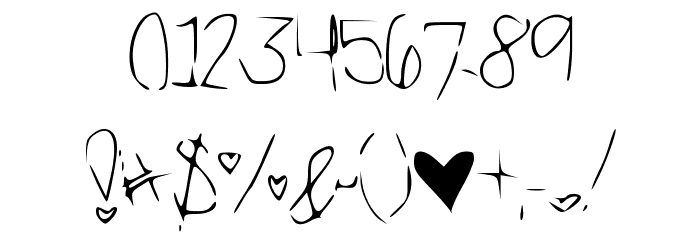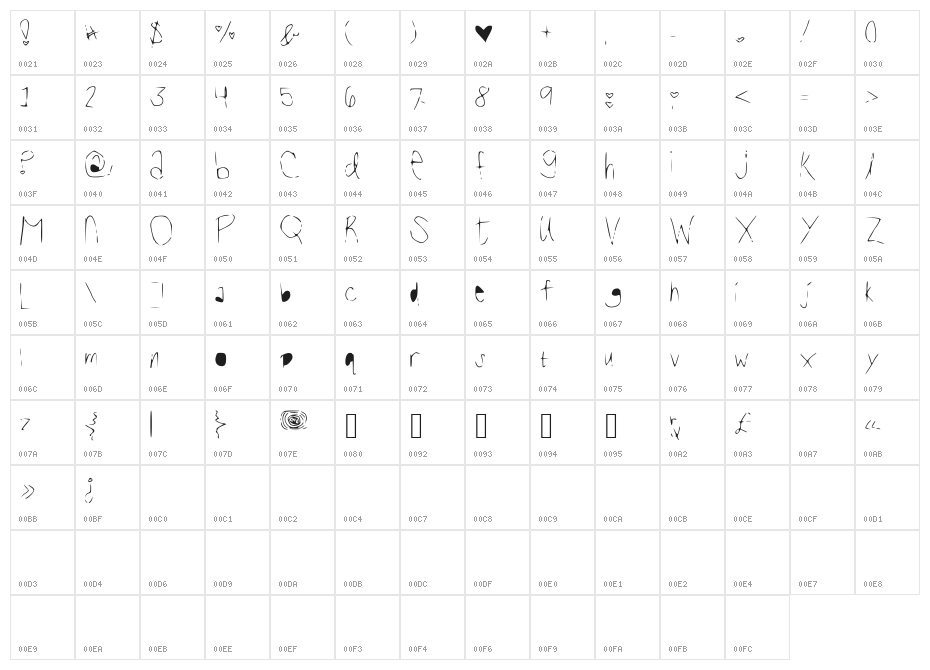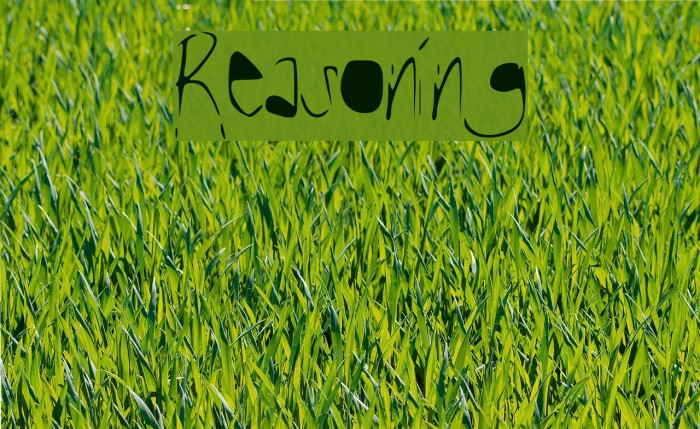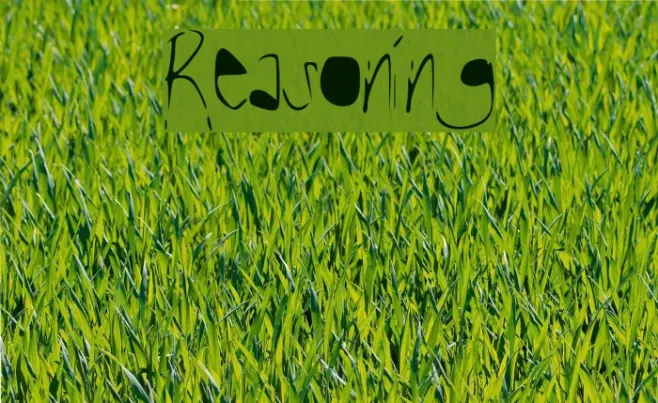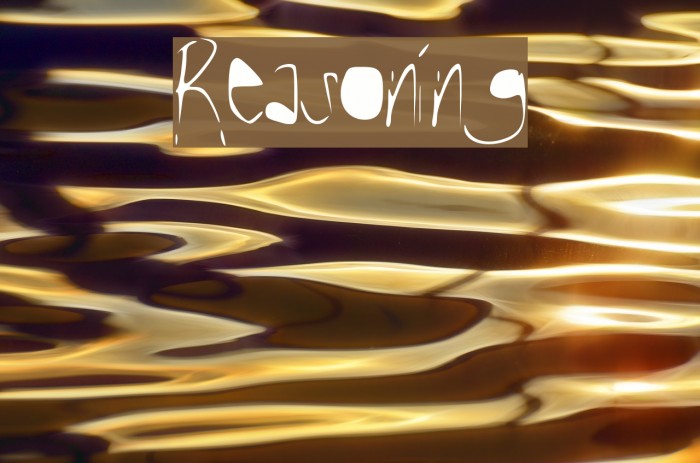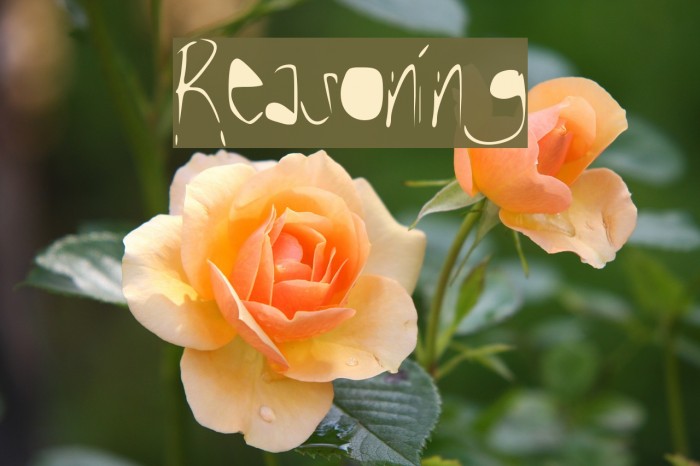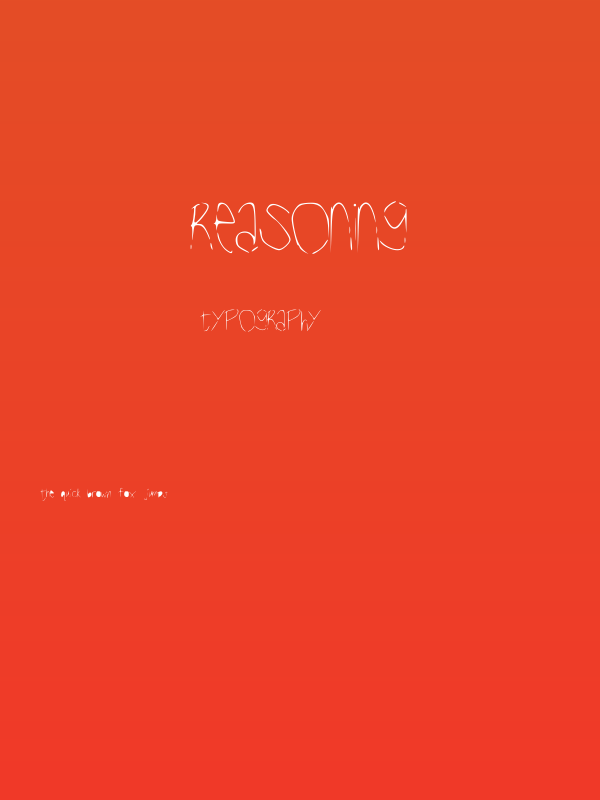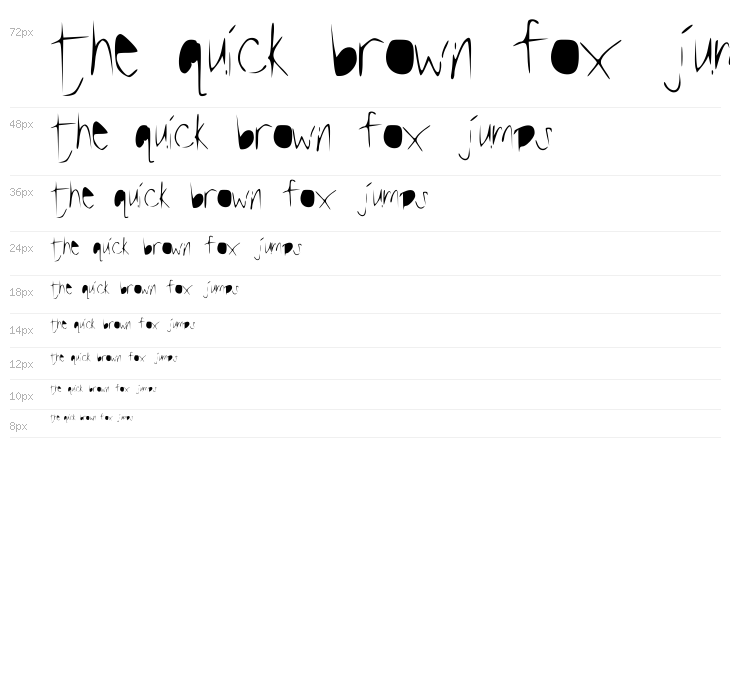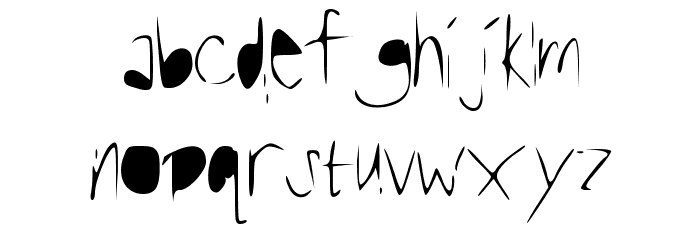
Reasoning Font
Reasoning Description
This font features a whimsical and artistic style with a playful, hand-drawn appearance. The characters exhibit a unique blend of irregular shapes and varying stroke widths, creating a dynamic and lively look. The uppercase letters are tall and slender, while the lowercase letters maintain a quirky, uneven form. Numbers and special characters follow the same playful design, adding to the font's overall charm. The font's distinctive style makes it suitable for creative and informal projects, where a touch of personality is desired.
| Proposed Projects | Ideal for greeting cards, children's books, playful branding, and artistic posters. |